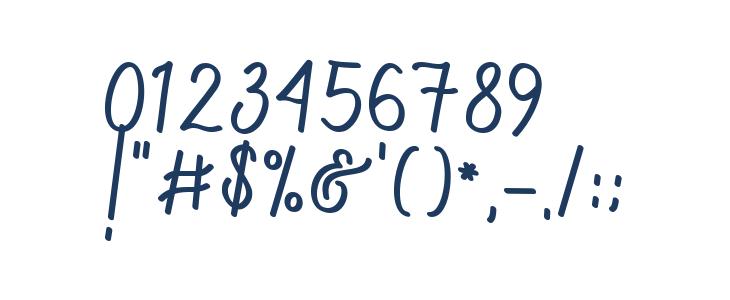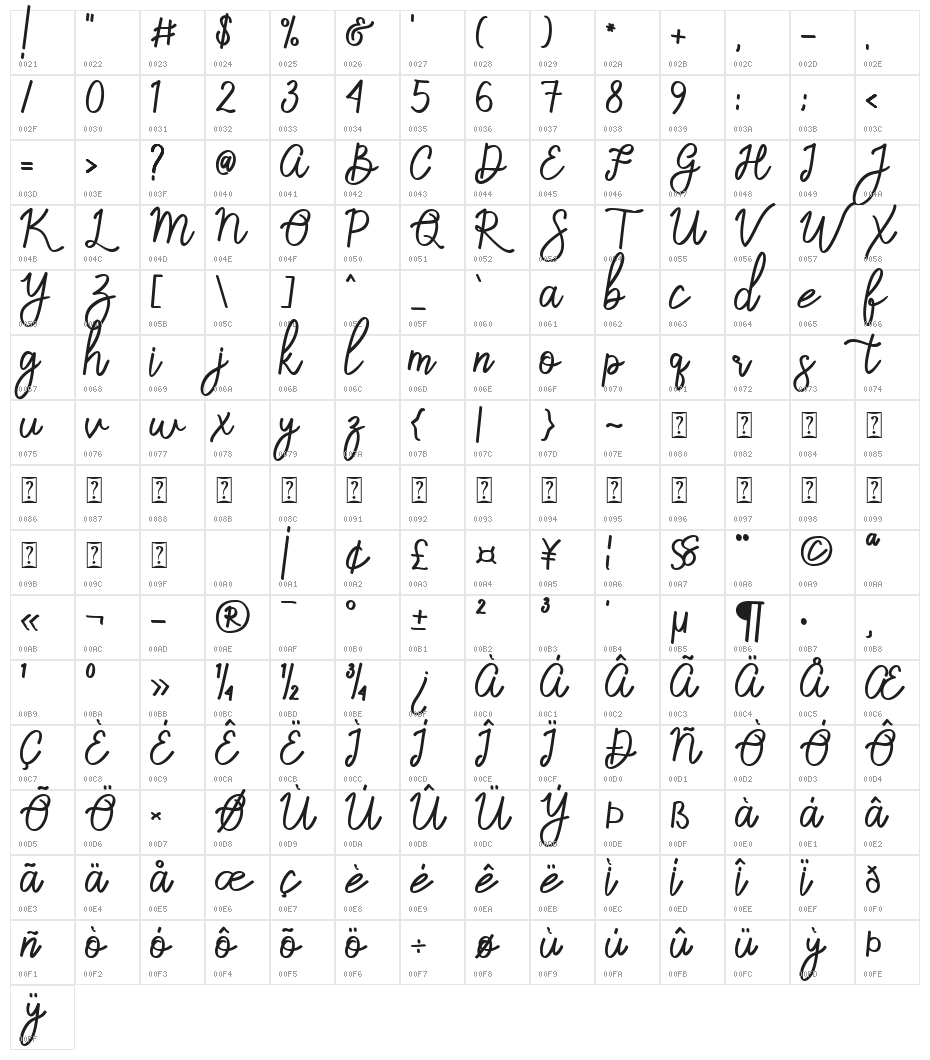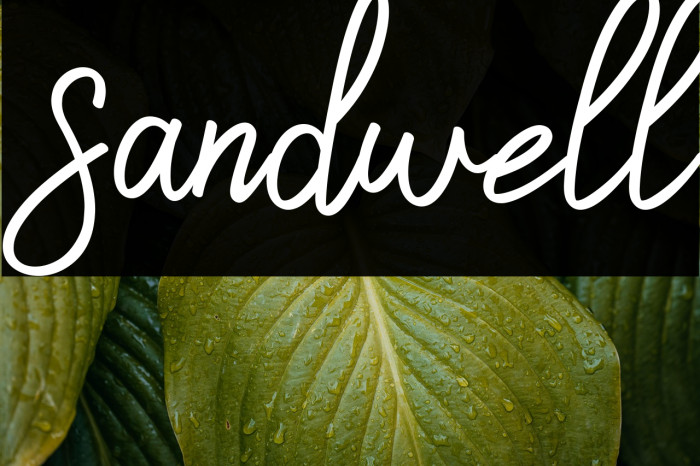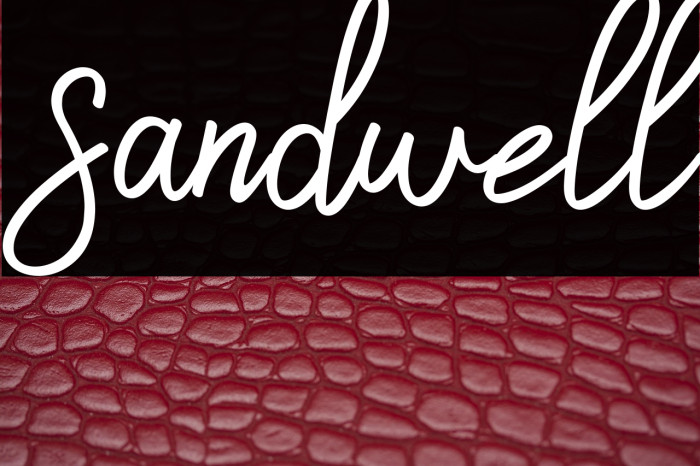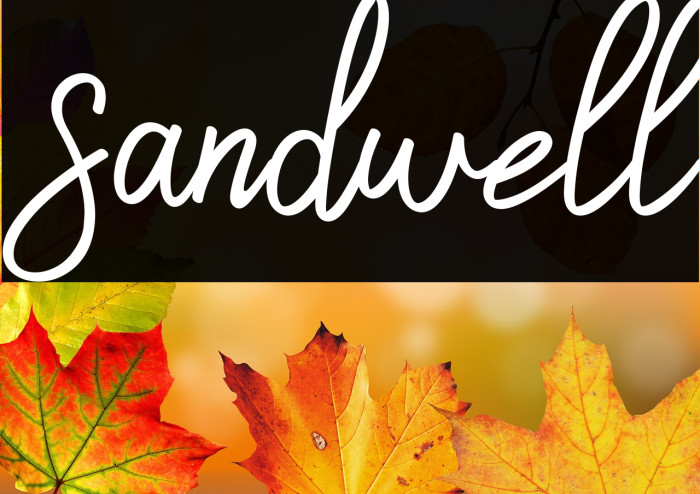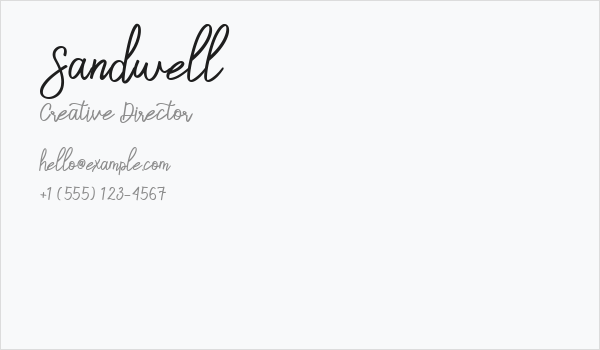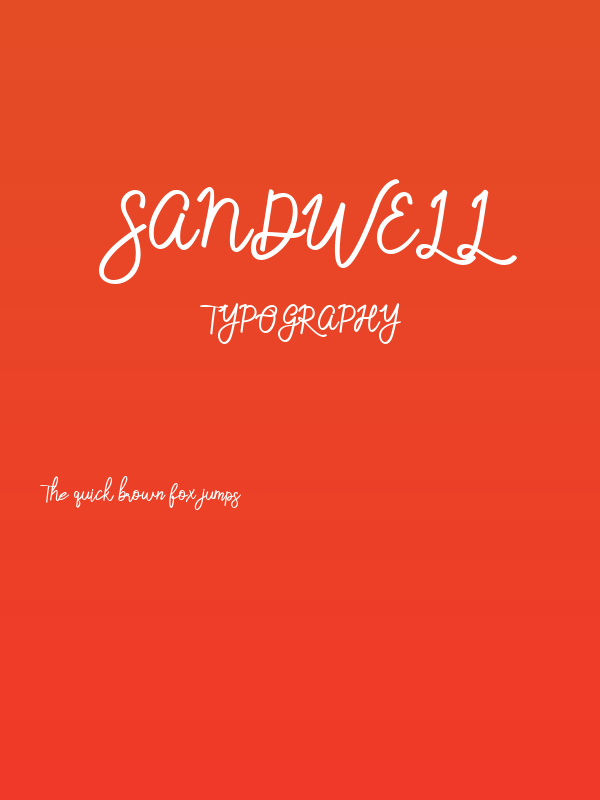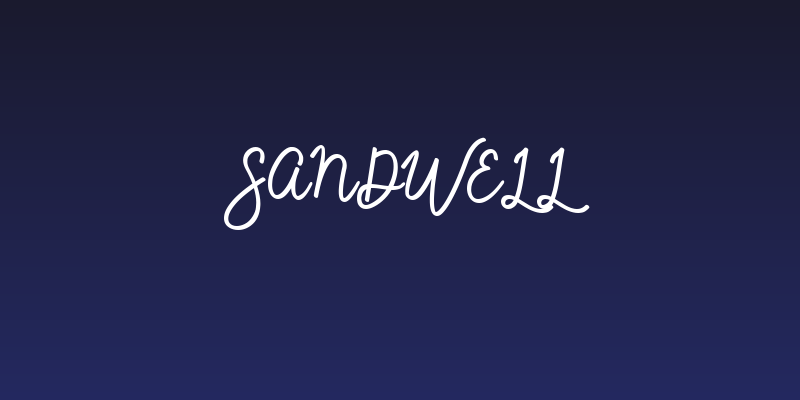
Sandwell Font
Sandwell Description
This font features a flowing, cursive style with a handwritten appearance. The letters are interconnected, creating a seamless and elegant script that mimics natural handwriting. The uppercase letters are slightly more embellished, with loops and curves that add a touch of sophistication. The lowercase letters maintain a consistent flow, enhancing readability while preserving the artistic flair. Numbers and special characters are designed to match the script's fluidity, ensuring a cohesive look across all text elements. This font is ideal for projects that require a personal touch, such as invitations, greeting cards, or branding materials that aim to convey warmth and creativity.
| Proposed Projects | Ideal for invitations, greeting cards, personal branding, and creative projects. |